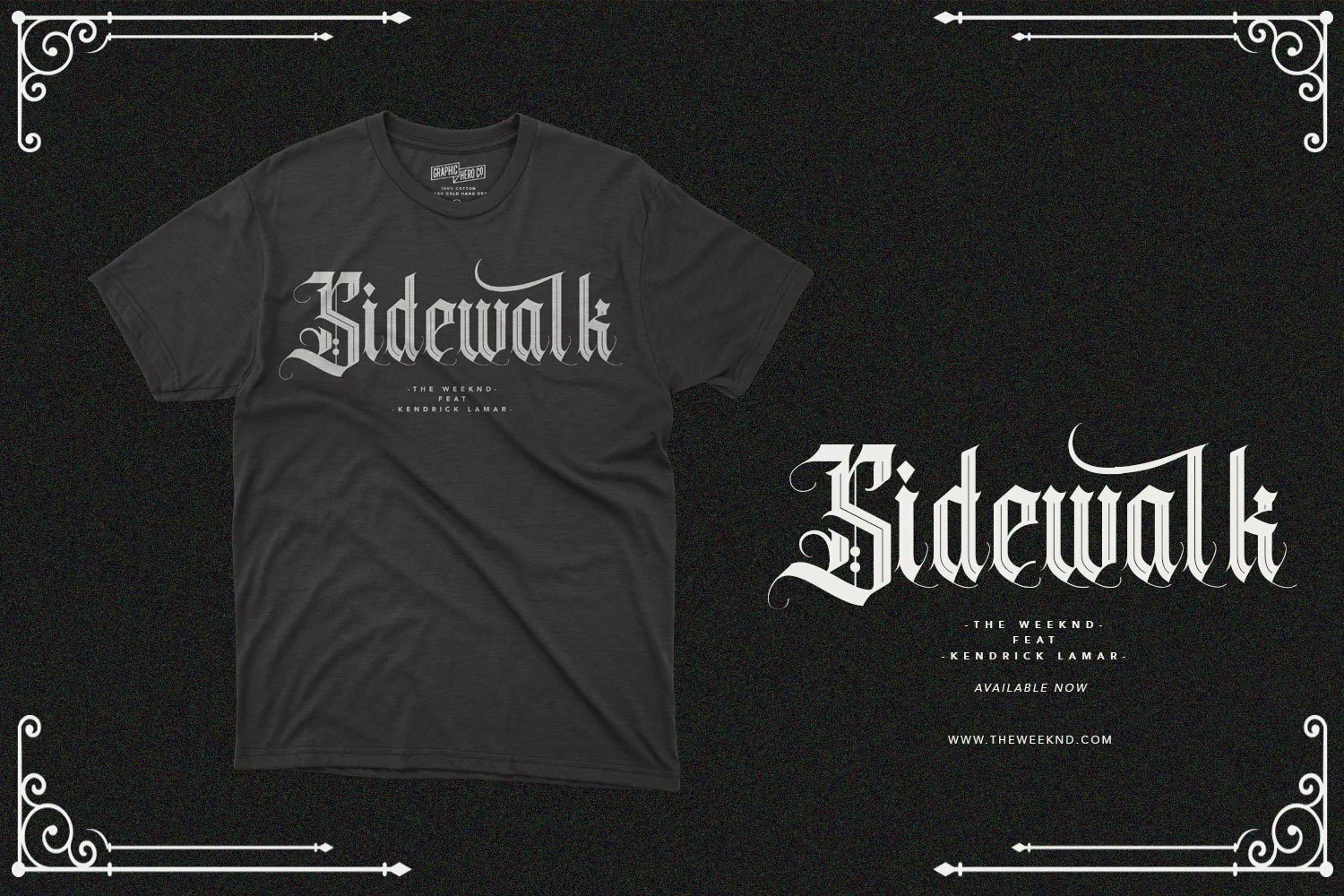
Introducing Clockwork Blackletter Vintage
Clockwork Blackletter Vintage is a handmade Modern Victorian handlettering, which is combining modern and classic typography with some awesome alternates. Yes we back to early 1800s, bring classic touch on this decade.